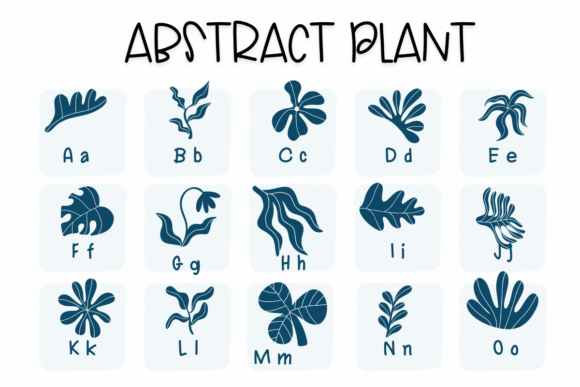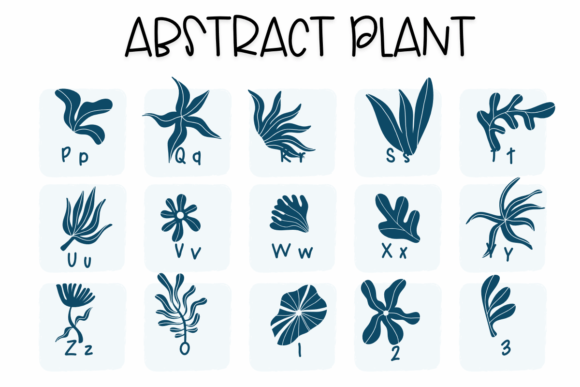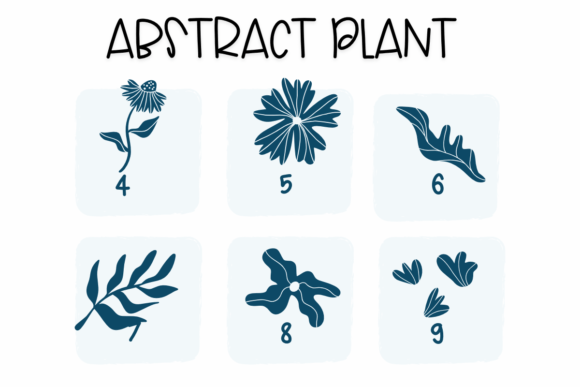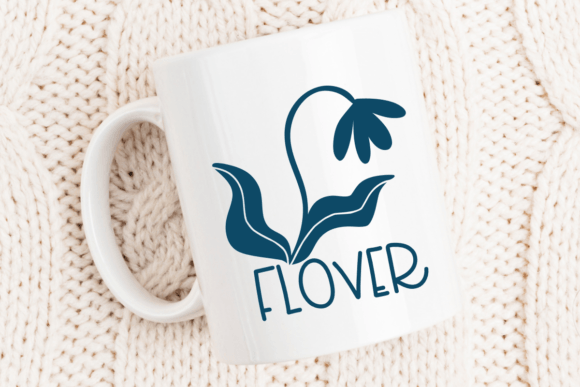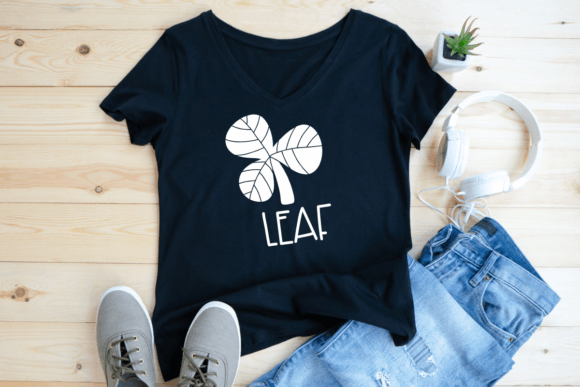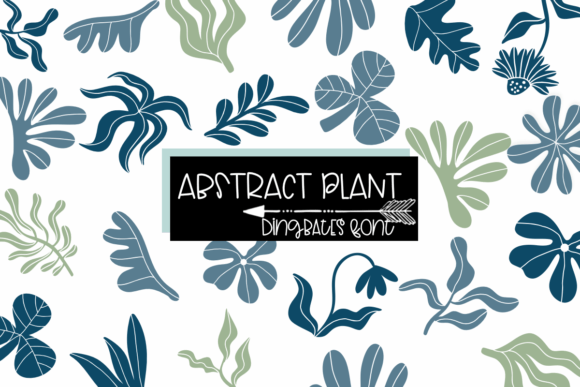
The Ultimate Guide to Abstract Plants Font: Elevate Your Creative Projects
I’ll never forget the time I was working on a wedding invitation project, and I just couldn’t find the right font to match the theme. My client wanted something unique, something that would make their special day stand out. That’s when I stumbled upon the Abstract Plants font. It was love at first sight! 💕 This dingbats font with a sketched theme style instantly elevated my design, and I knew I had to share it with the world.
An Honest Review of Abstract Plants Font
• ✨ Unique and quirky design that’s perfect for creative projects
• ✅ Easy to use and navigate, even for beginners
• 🎨 Highly versatile, suitable for various design applications
• 💡 Inspirational and fun to work with, encourages creative experimentation
While Abstract Plants font is an amazing addition to any design project, there are a few things to keep in mind: 🤔
• ⚠️ Limited character set, which might not be suitable for large-scale text-based projects
• ⚠️ May not be the best choice for very formal or traditional designs
Exploring OpenType Features, Glyphs, and Stylistic Alternates
One of the best things about Abstract Plants font is its OpenType features, glyphs, and stylistic alternates. These features allow you to add more creativity and variety to your design. Here are a few tips on how to access and use them:
• Experiment with different stylistic alternates, such as swashes or ligatures, to add more flair to your design.
The Backstory of Abstract Plants Font
The story behind Abstract Plants font is one of creativity and inspiration. The designer, inspired by the beauty of nature, wanted to create a font that would capture the essence of plants and flowers. With a passion for illustration and typography, they poured their heart and soul into creating a unique and versatile font that’s perfect for creative projects.
Q: What is the best way to use Abstract Plants font?
A: The best way to use Abstract Plants font is to experiment with different design applications, such as wedding invitations, DIY projects, crafts, decorations, logos, and more.
Q: Is Abstract Plants font easy to read?
A: Abstract Plants font is a decorative font, and while it’s beautiful, it might not be the most readable font for large blocks of text. However, it’s perfect for titles, headings, and short text snippets.